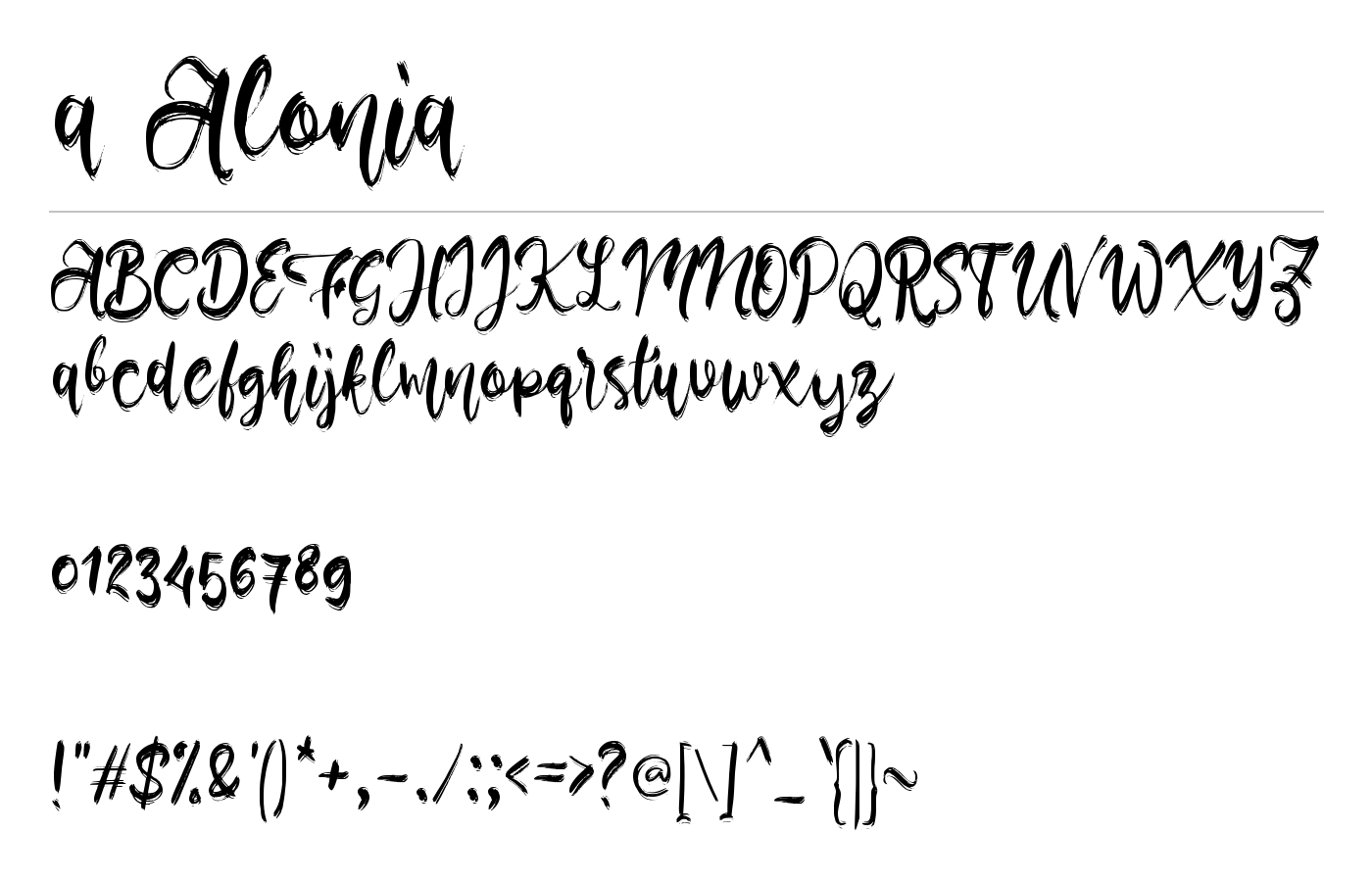
Alonia is a lively script font with a hand-painted brush style that features bold, textured strokes creating a dynamic, artistic feel. Its uppercase letters are ornate and expressive, while the lowercase keep a playful yet readable flow, making it ideal for creative, casual, and expressive branding or design projects. This font works well in logos, invitations, and headlines where a personal, handcrafted touch is desired.
a Alonia Font
About a Alonia Font